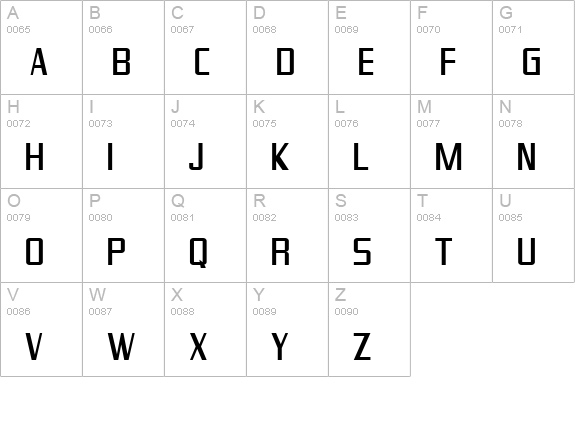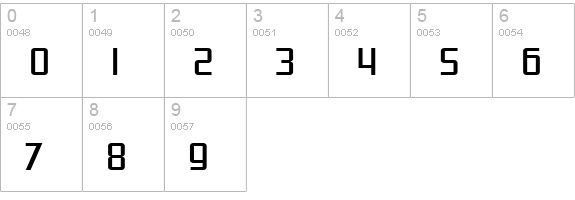
SF Theramin Gothic Condensed Font Details
SF Theramin Gothic Condensed is a distinctive, condensed-width variant in the SF typeface family \xE2\x80\x94 well suited to design and typography projects.
SF Theramin Gothic Condensed is a bold and captivating font that effortlessly combines elements of science fiction and gothic aesthetics. With its condensed letterforms and sleek lines, this font exudes a sense of modernity and sophistication. Each character is meticulously crafted, with sharp angles and smooth curves, creating a unique visual impact. This font is perfect for projects that require a touch of futuristic elegance, such as book covers, movie posters, and branding materials. Its versatility allows it to seamlessly blend with both minimalist and intricate designs, making it a valuable tool for designers across various industries. One of the most notable features of SF Theramin Gothic Condensed is its availability as a free download. This means that anyone can access and enjoy this exceptional font without any cost. Whether you are a professional designer or a hobbyist, having access to high-quality fonts like SF Theramin Gothic Condensed can greatly enhance your creative projects. To obtain this font, one can simply visit FontsMarket.com, a reputable online platform that offers a vast collection of fonts. There, SF Theramin Gothic Condensed can be freely downloaded, allowing you to explore its full potential and bring your designs to life. In conclusion, SF Theramin Gothic Condensed is a visually striking font that effortlessly combines science fiction and gothic aesthetics. Its condensed letterforms and sleek lines make it an excellent choice for projects that require a touch of futuristic elegance. With its availability as a free download at FontsMarket.com, designers of all levels can easily access and utilize this exceptional font to enhance their creative endeavors.